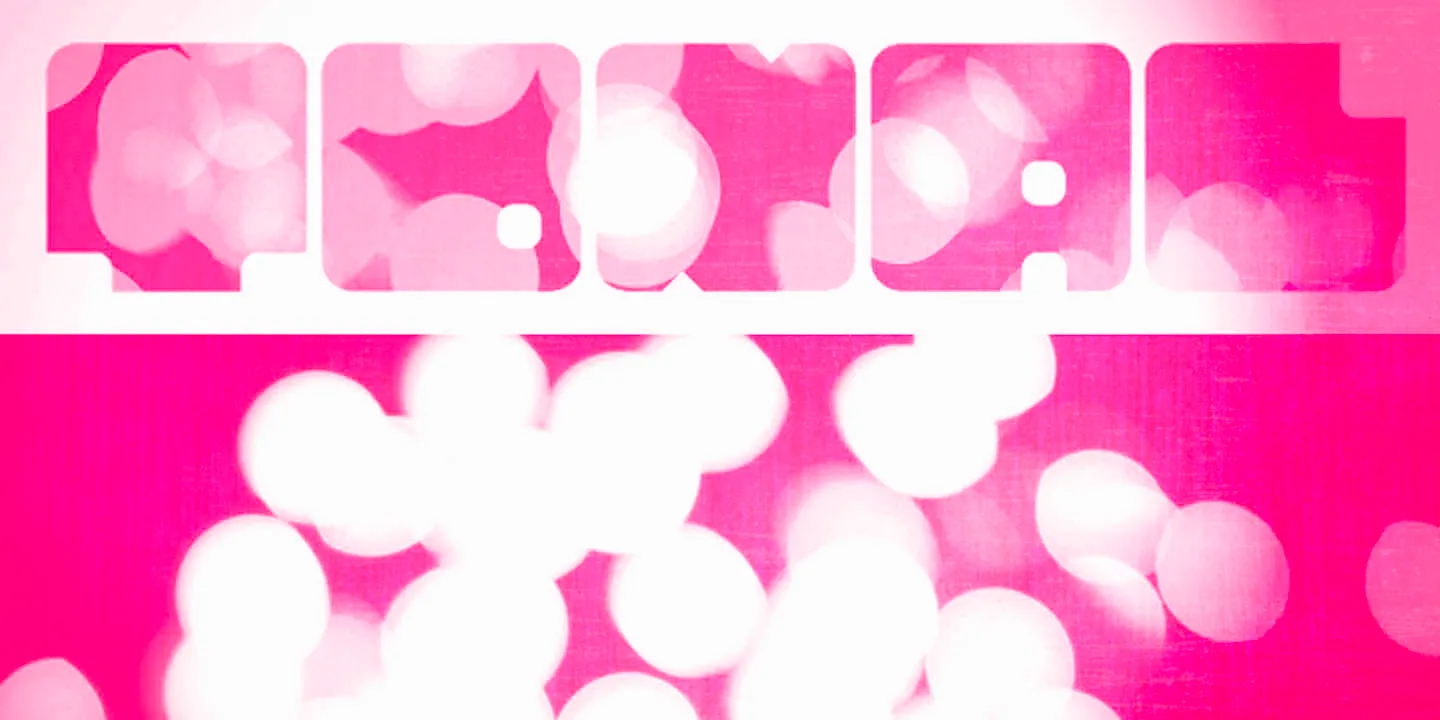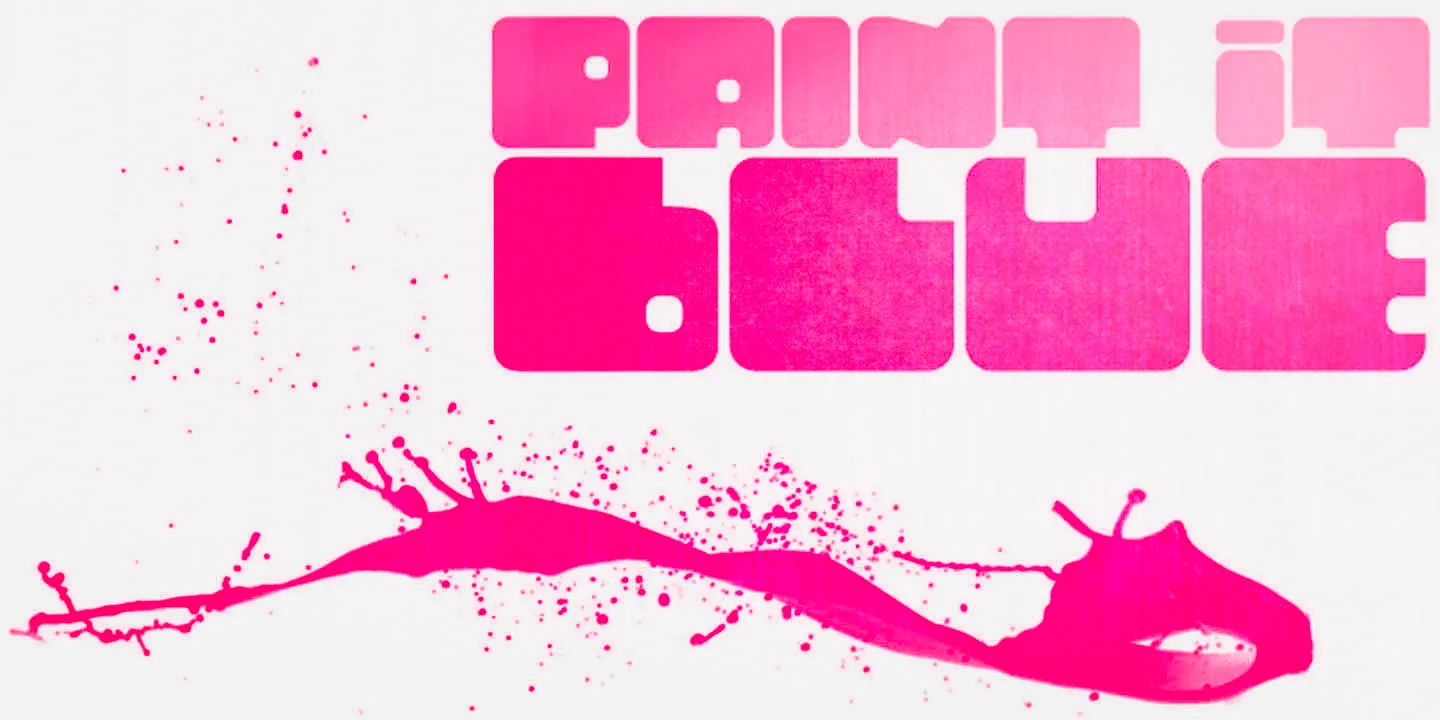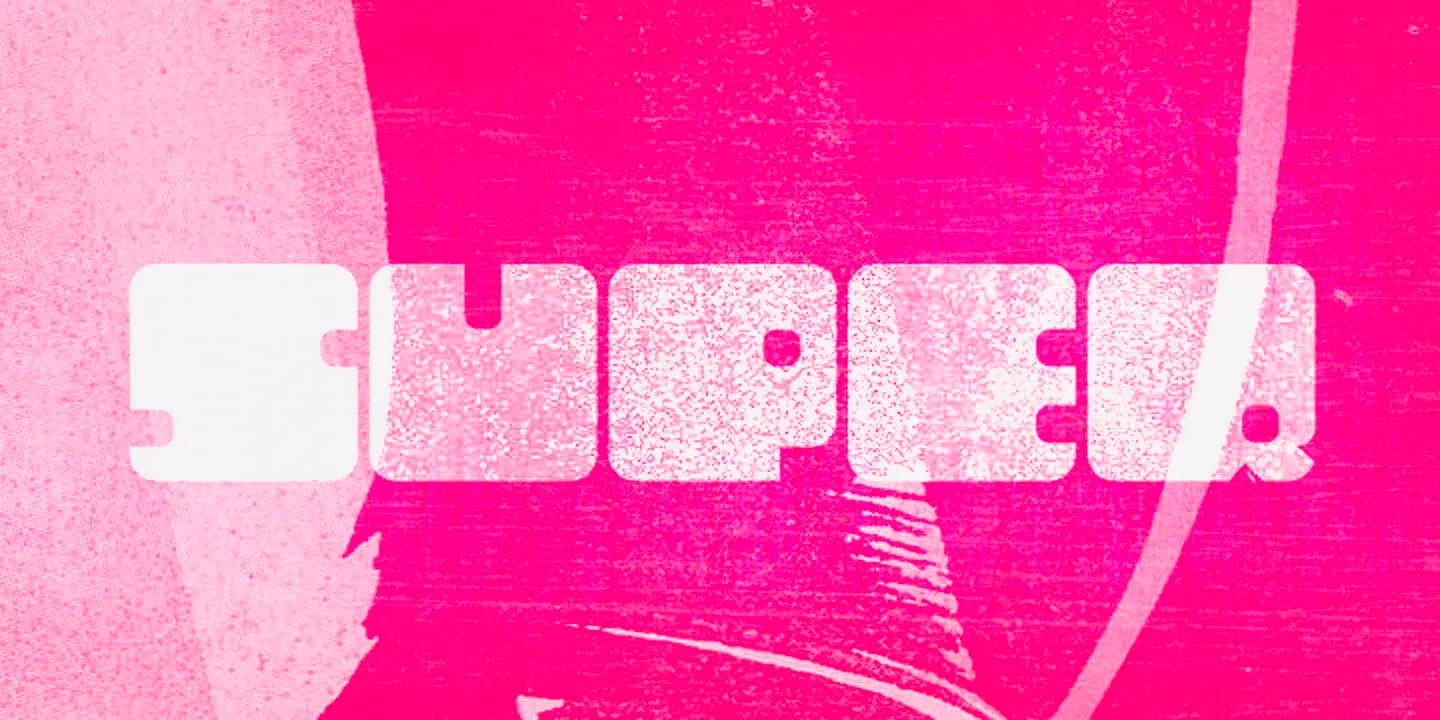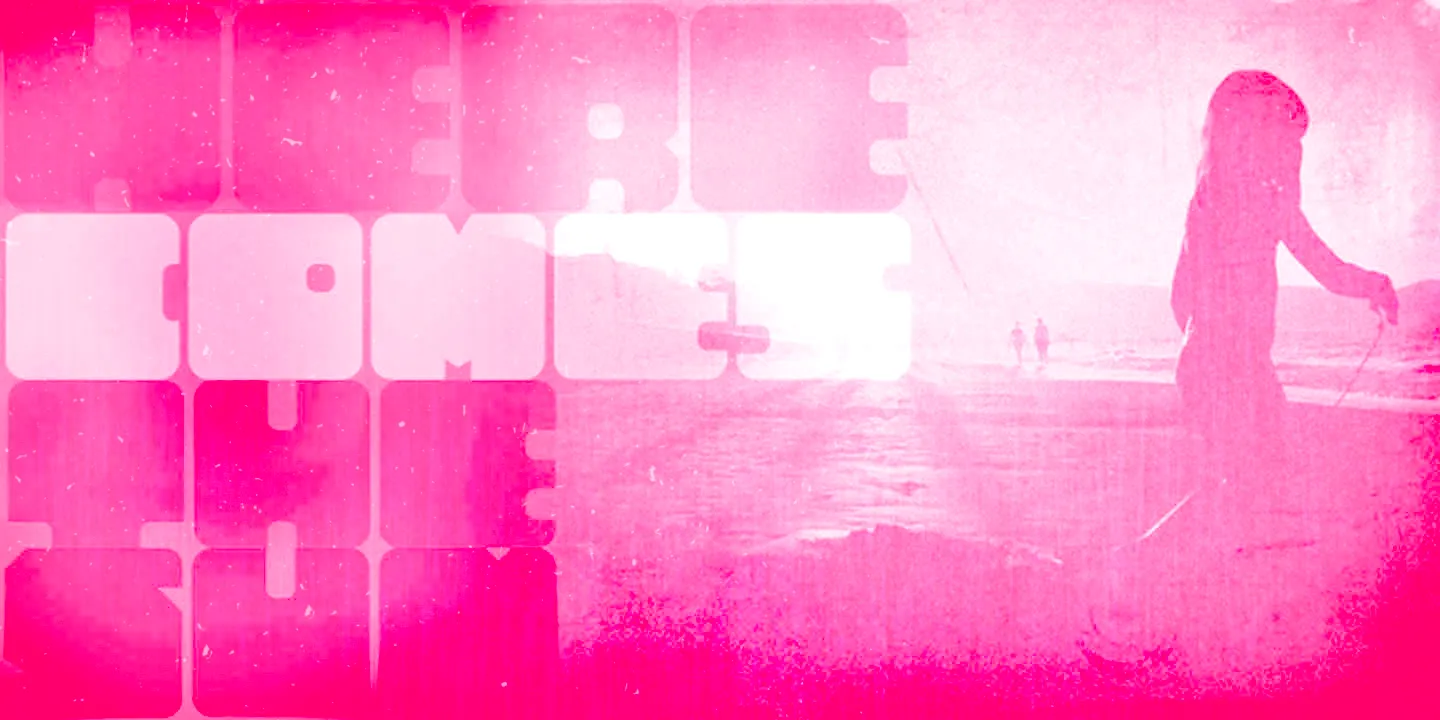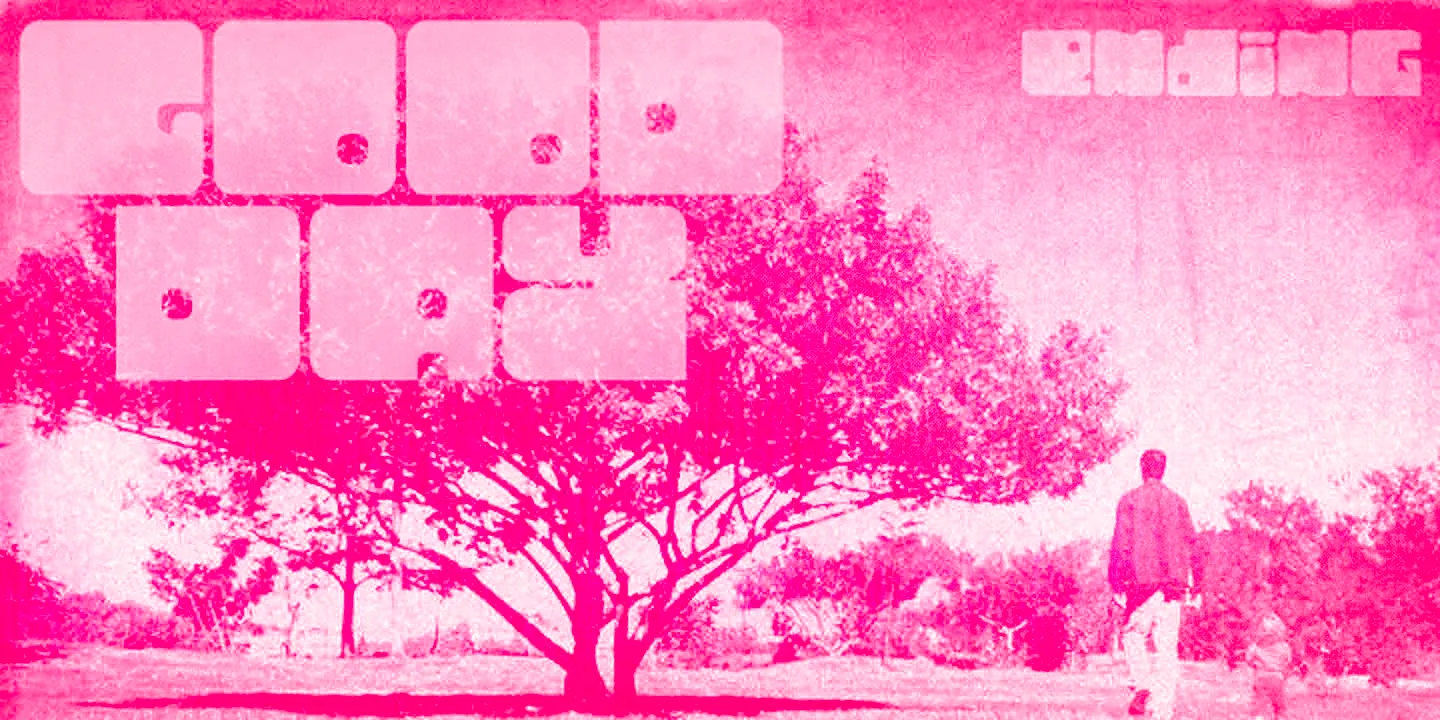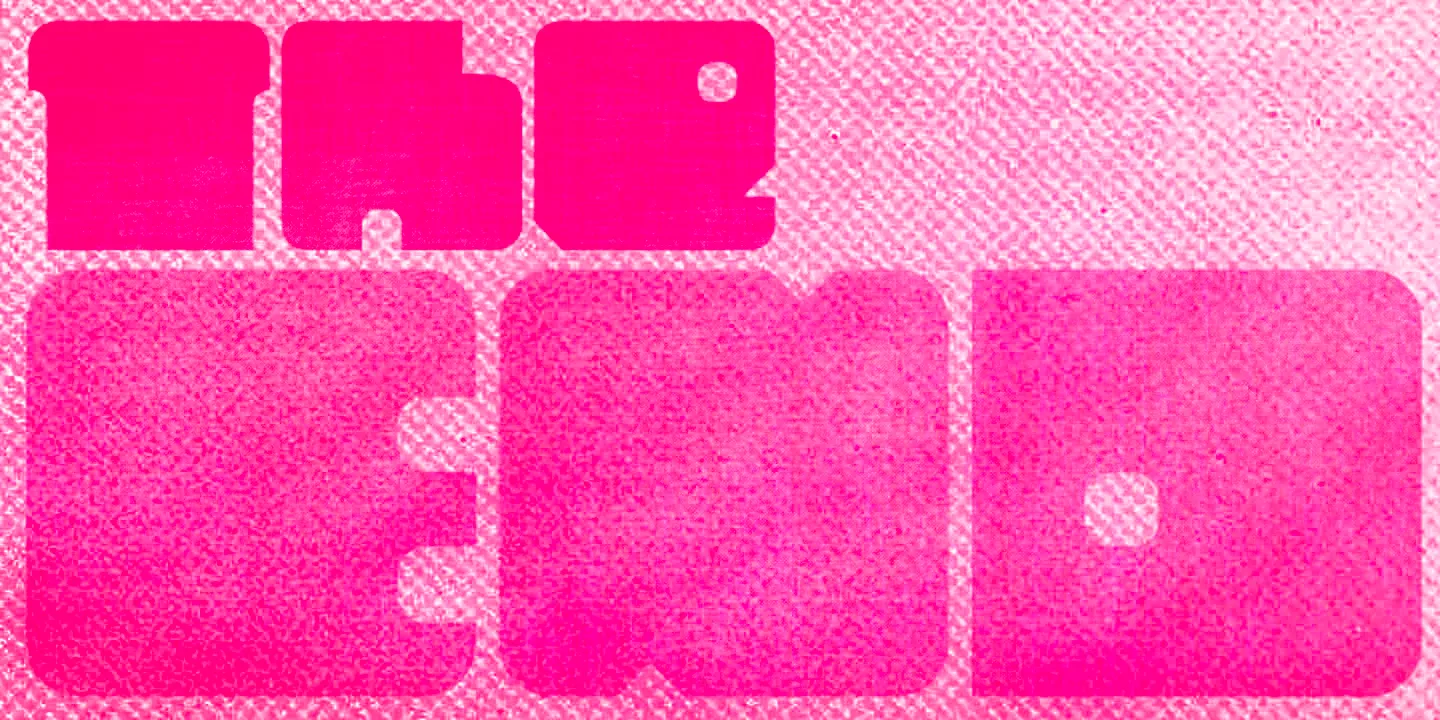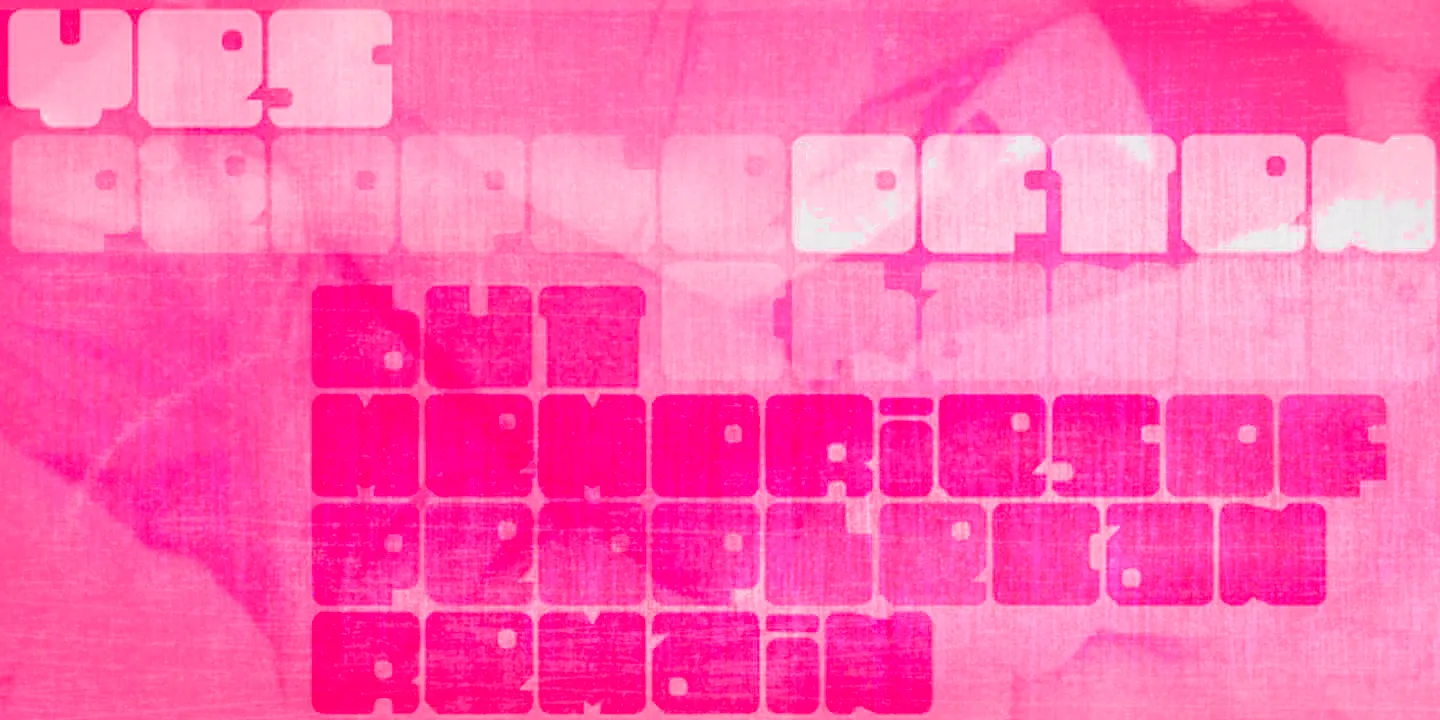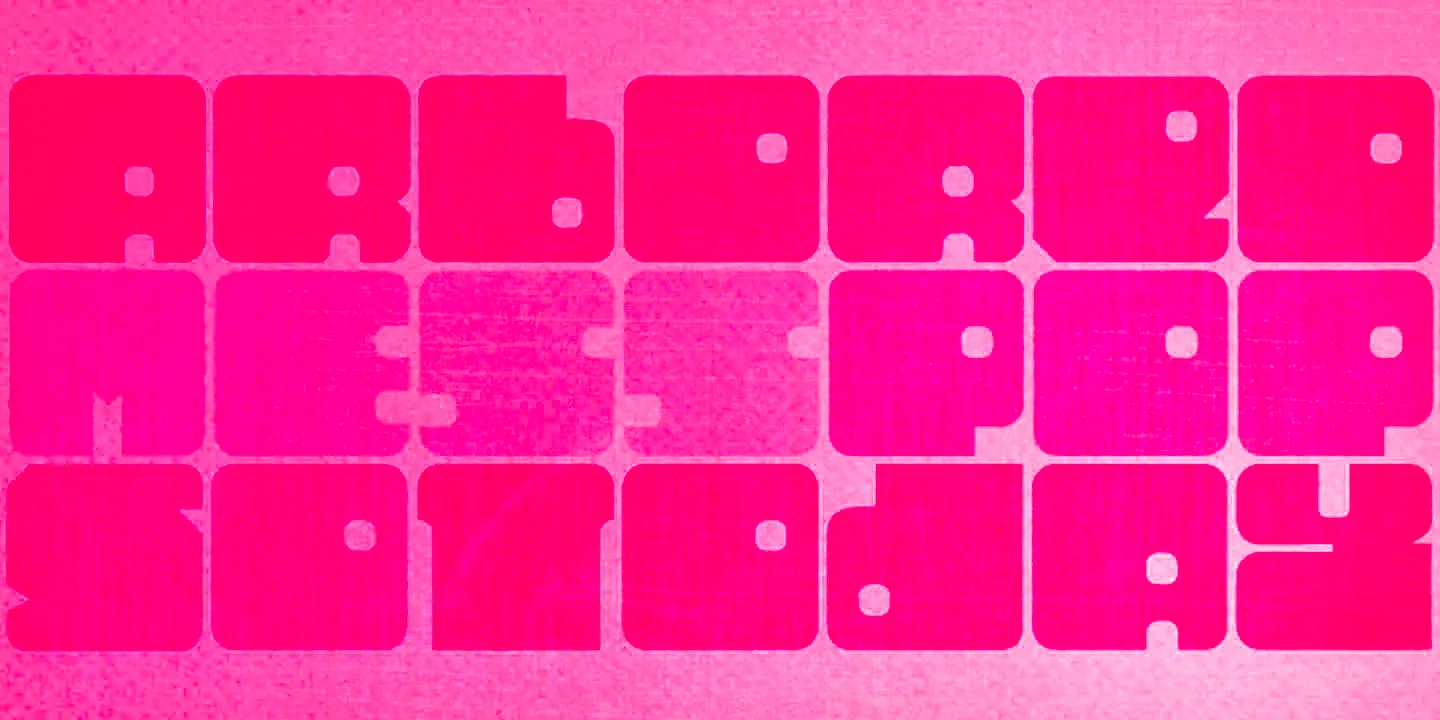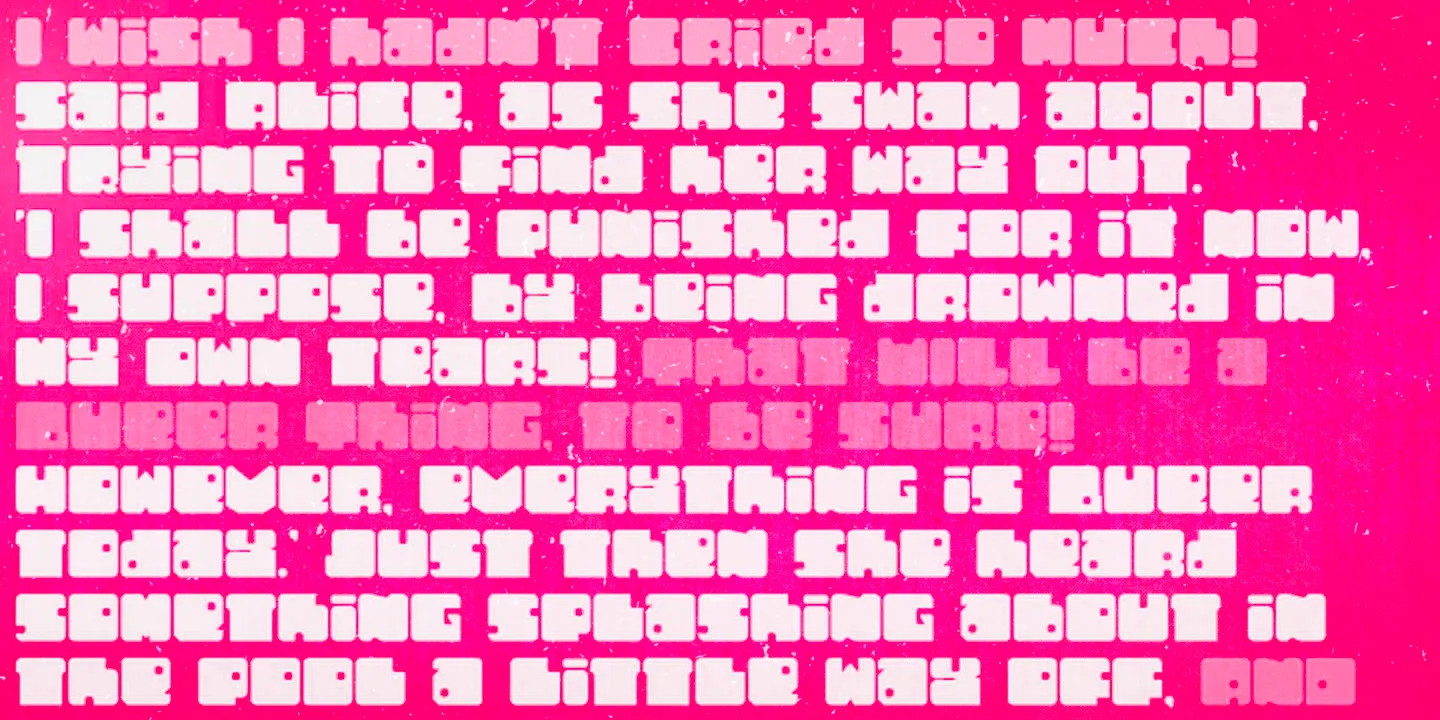
Tonal Fonts
Tonal
Tonal is an otherworldly typeface that appears carved out of a massive rock. When your project calls for something bombastic and bold, this is the family to do it. It is an all-caps design available in 3 widths. Use it large and loud on movie posters, album covers, magazine spreads, food packaging, picture books, point-of-purchase displays, and strategic branding to amplify your message.